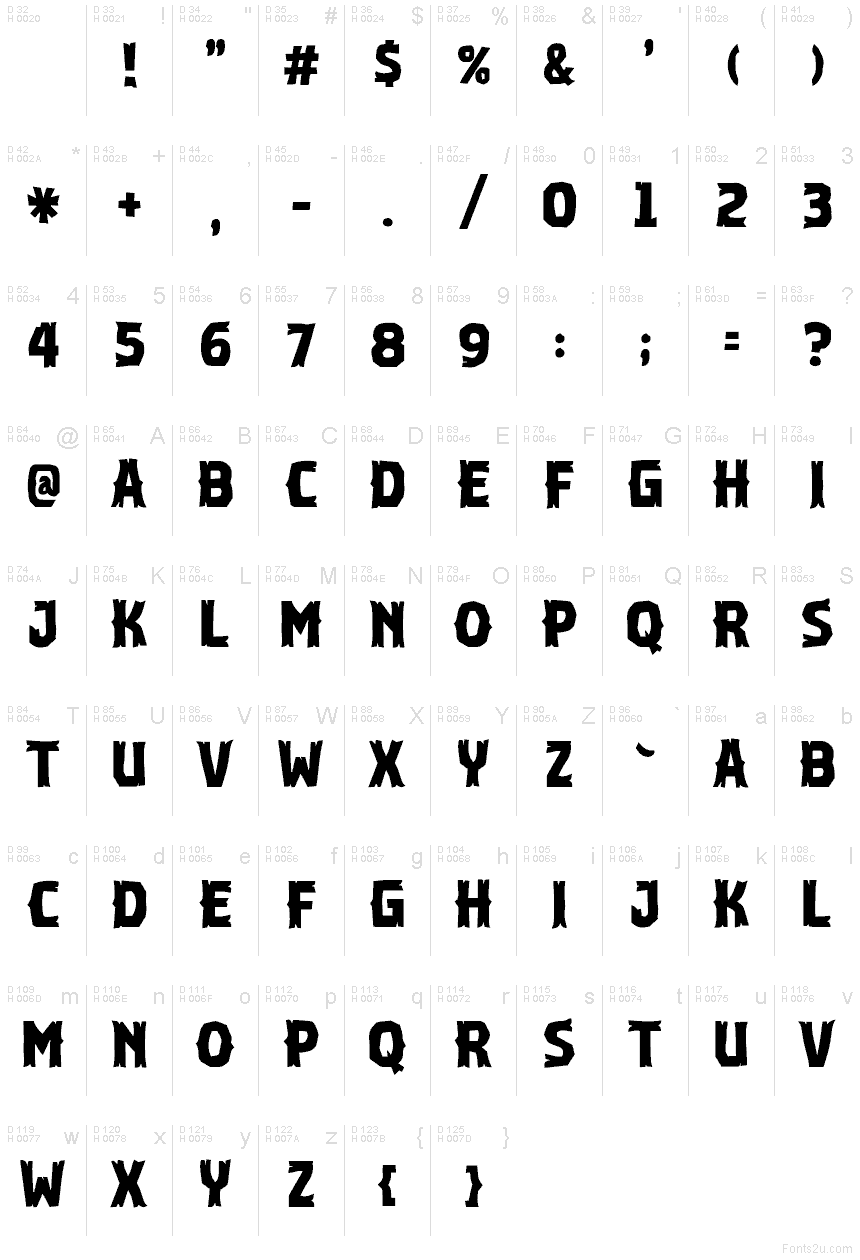
Throne of Shadows
Throne of Shadows font by BlackFridayFont FMF is a free Halloween display font. Its jagged, claw-like strokes and torn edges feel hand-slashed, with tight spacing that packs a punch. The letters read bold and inky, like they crawled out of a midnight poster—dramatic, legible, and dripping with mood.
Using Throne of Shadows, headlines snap to attention on haunted house posters, trick‑or‑treat invites, horror podcast covers, escape‑room signage, seasonal merch, game titles, and spooky streaming thumbnails. This free font thrives big and loud, letting the rough texture do the talking. Pair it with a clean geometric sans for body copy and keep generous margins to let those sharp silhouettes breathe.